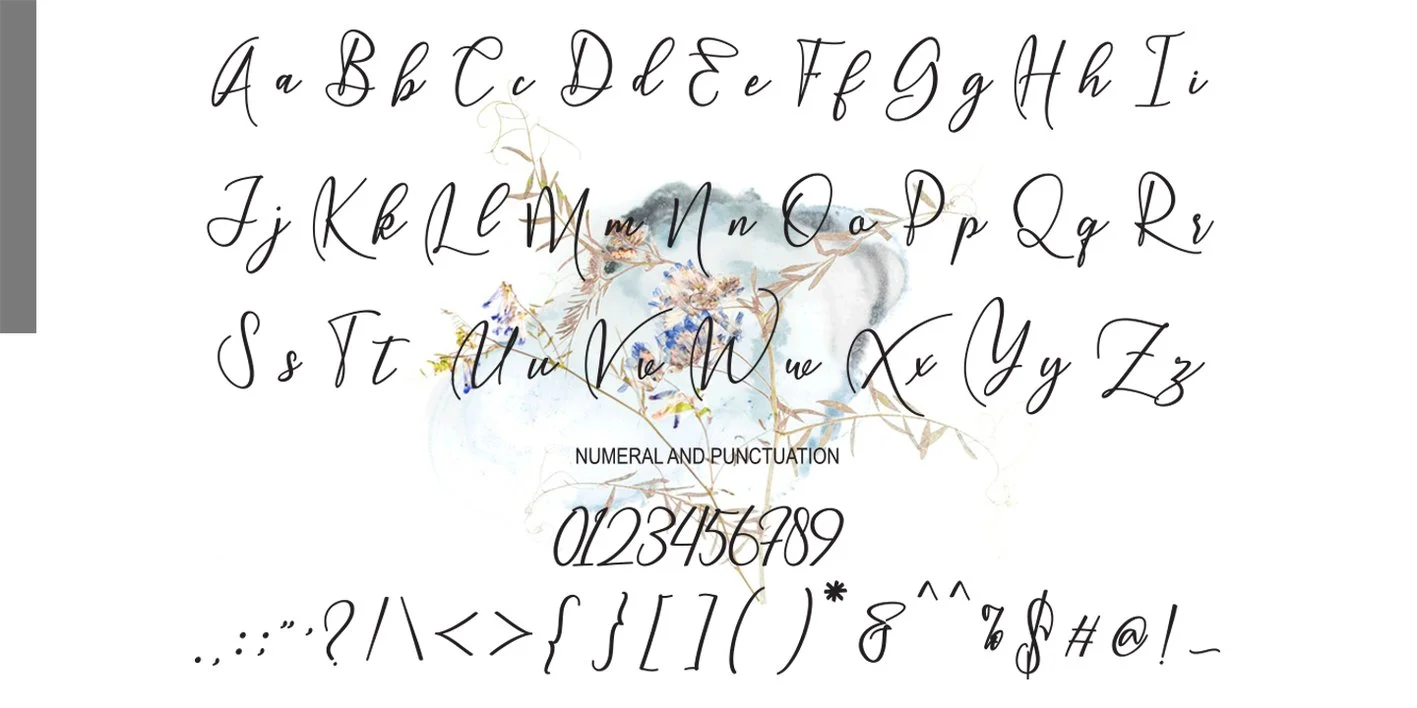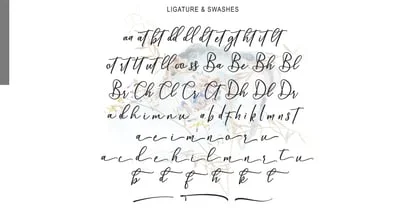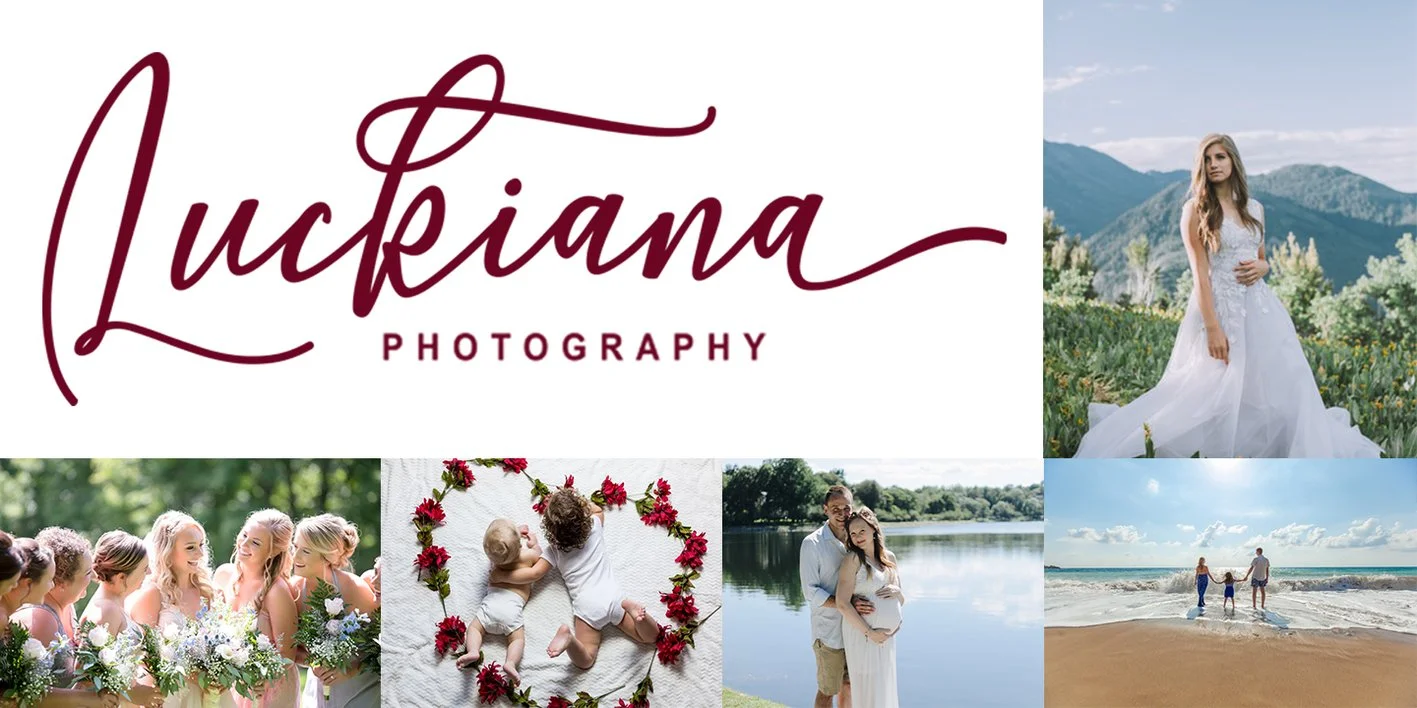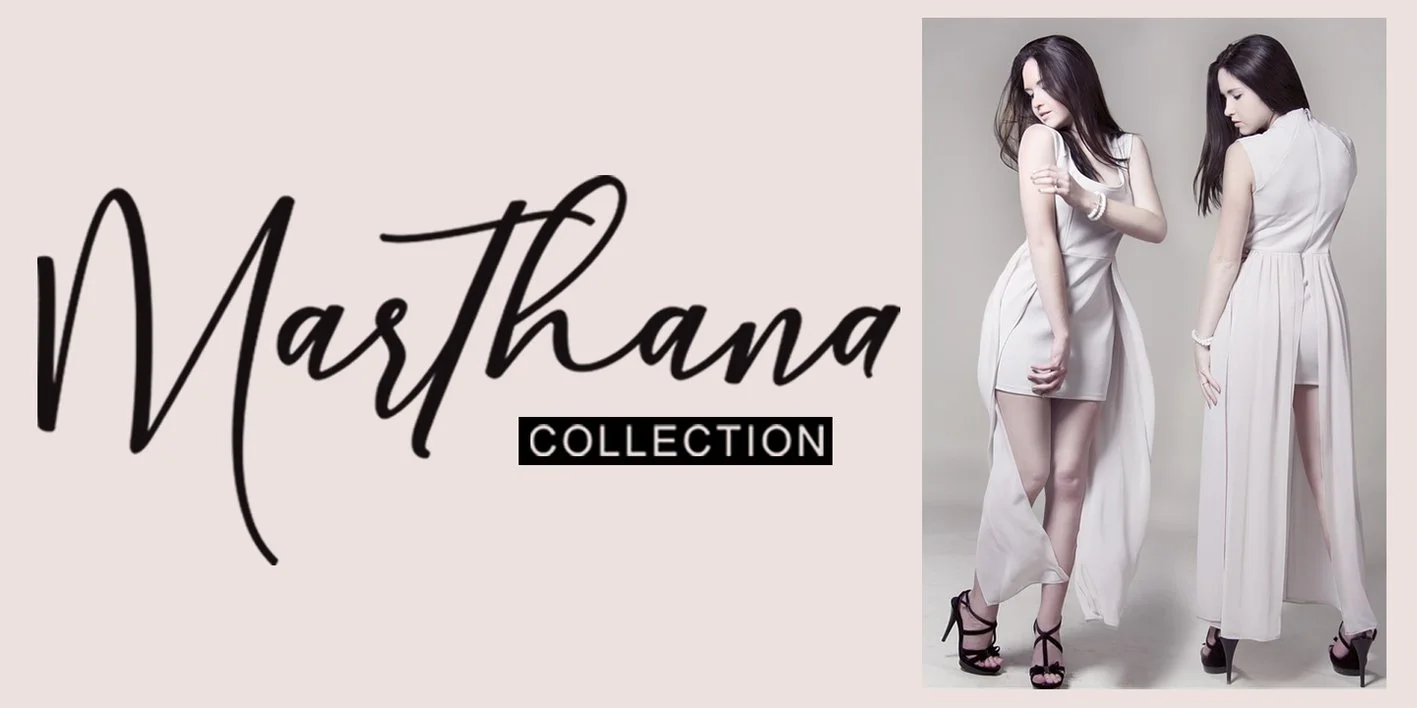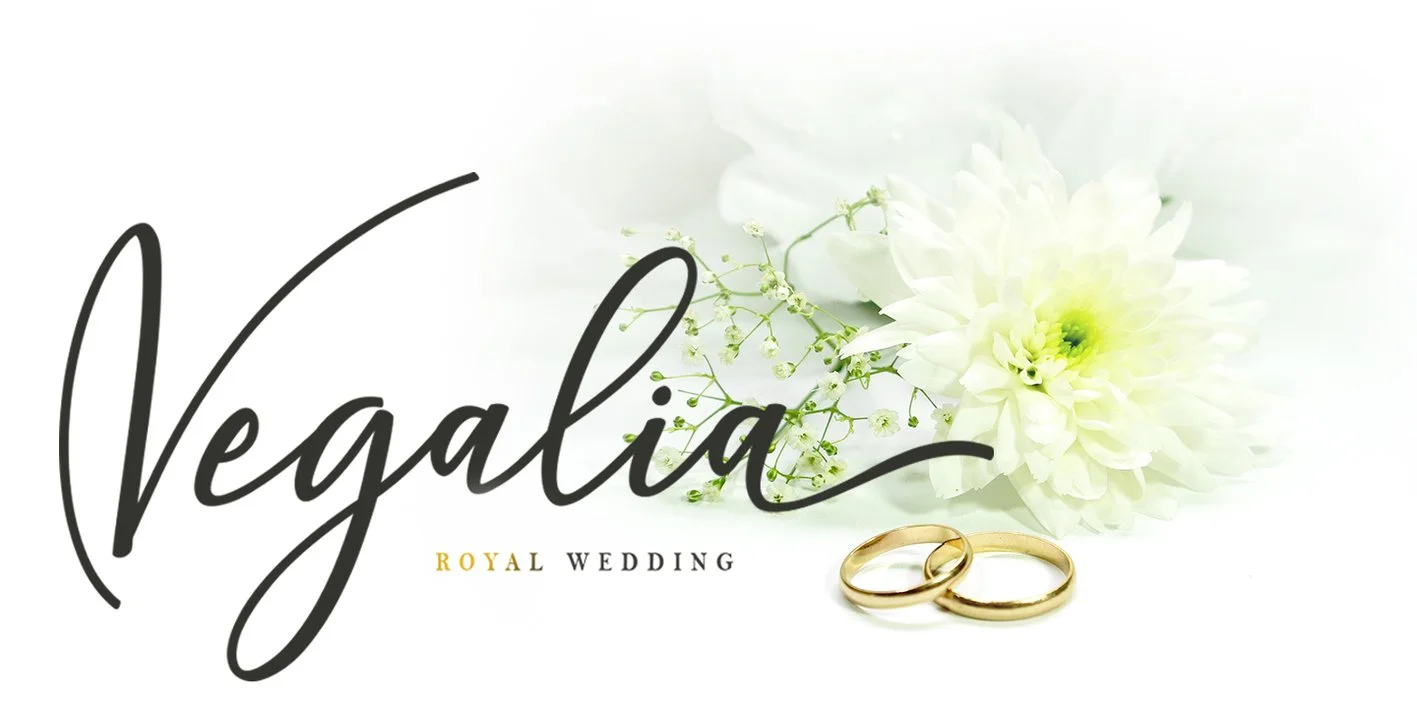
Wellington Font
Few typefaces manage to balance a confident voice that adapts to diverse briefs with genuine day-to-day practicality. Wellington is one of them. The typeface brings an elegant, calligraphic sensibility to a broad range of creative disciplines, with distinctive character without sacrificing readability that holds up whether the work is print-first or screen-first.
In practice, Wellington proves particularly effective for advertising campaigns, annual reports, fashion editorials, luxury stationery, brand identity systems. Designers reaching for it find that the type decisions feel resolved rather than laboured — a useful quality when client timelines are tight.
The range of applications extends to product labels, boutique logos, fragrance labels, high-end cosmetic packaging. That breadth is deliberate: the proportions and spacing were stress-tested across a wide range of mock briefs before the typeface was finalised.
The letterforms draw from classical calligraphic tradition, with carefully modulated thick-to-thin stroke contrast that mimics the pressure of a pointed nib. Connecting strokes have been optically adjusted so words flow naturally without awkward gaps between characters.
Graphic designers working on identity systems find Wellington a reliable choice for projects that demand both personality and restraint. The design avoids the self-conscious quirkiness that dates quickly, settling instead for considered distinctiveness that holds up over time.